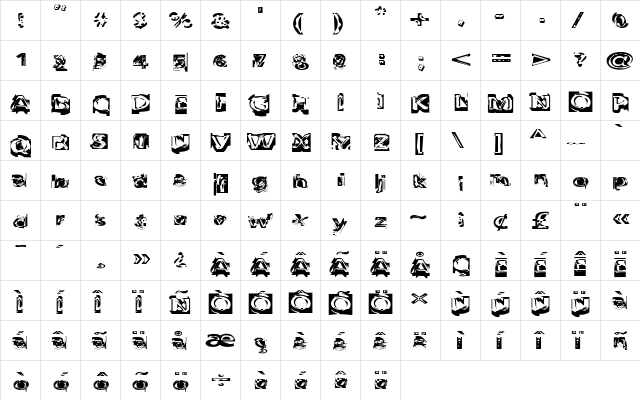
Fruitbasket Regular
Design Context for Fruitbasket Typeface
Fruitbasket is a composed and adaptable typeface that performs quietly and consistently across a wide range of design contexts.